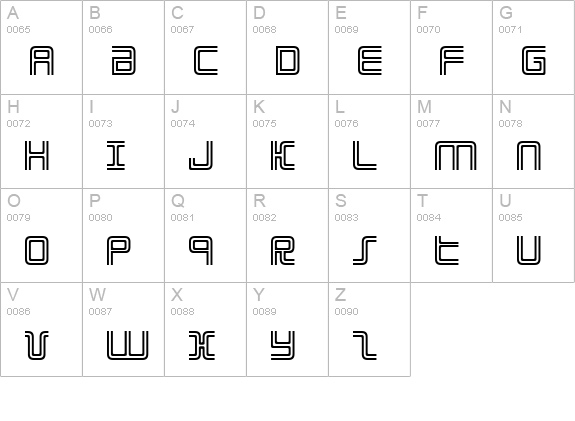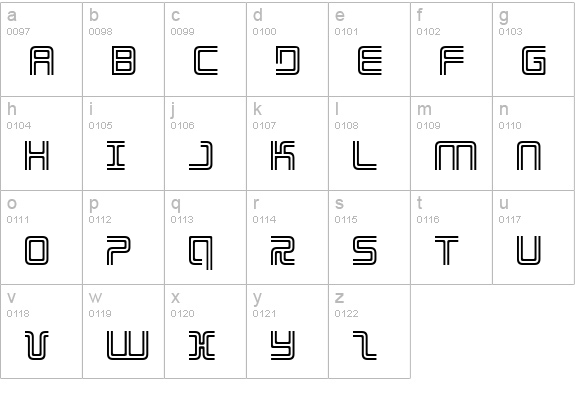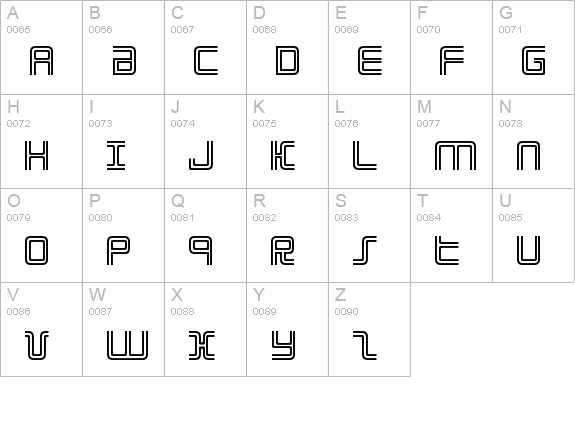
Election Day font is a bold and impactful typeface that exudes strength and authority. Its clean lines and sharp edges make it perfect for creating eye-catching designs for political campaigns, posters, and banners. With its modern aesthetic and powerful presence, Election Day font is sure to make a statement and leave a lasting impression. Best of all, Election Day font is completely free to download at FontsMarket.com. This means you can access this versatile typeface without any cost, making it a valuable resource for designers, marketers, and activists alike. Whether you're looking to convey a sense of patriotism, urgency, or determination, Election Day font is the ideal choice to help you communicate your message effectively. Download it today and let your designs speak volumes with this bold and impactful font.